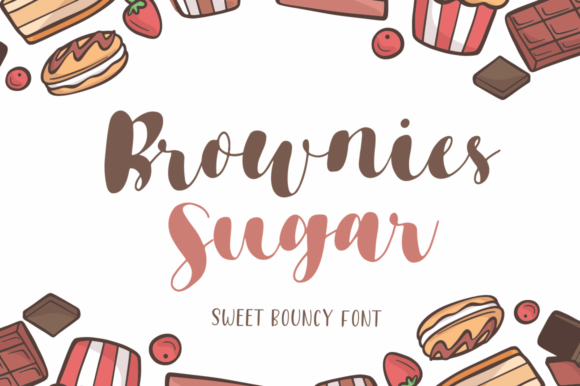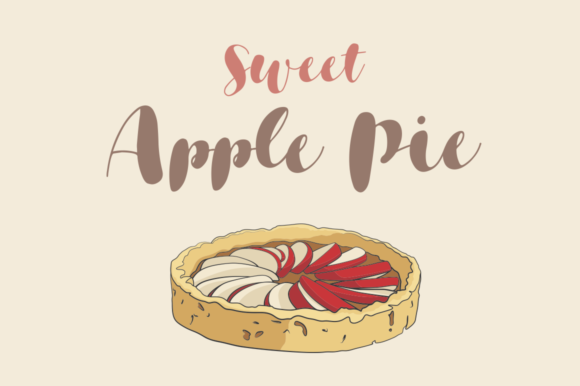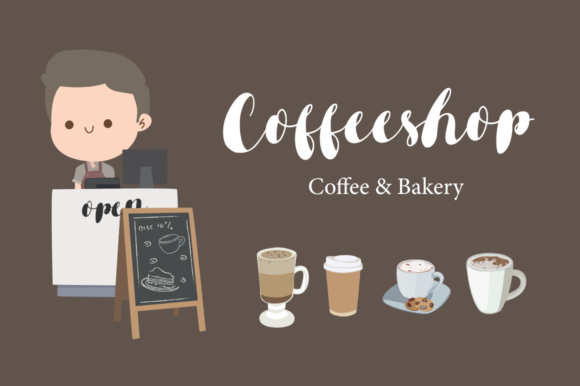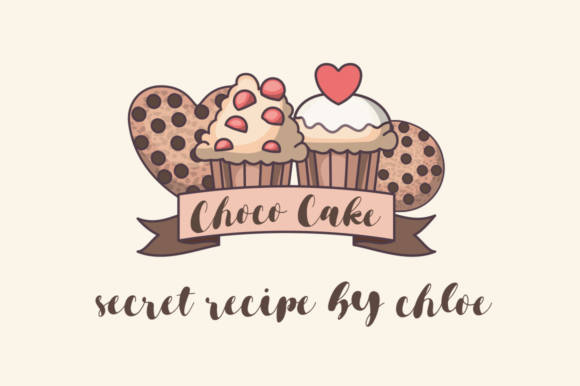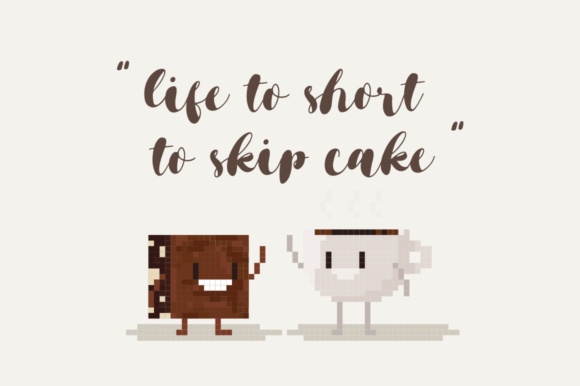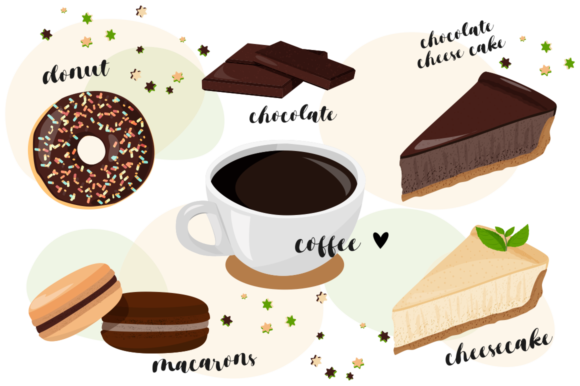
Brownies Sugar Font
About Brownies Sugar Font
Brownies Sugar simplifies elegance into one truly outstanding handwritten font.
Fall in love with its authentic feel and use it to create gorgeous wedding invitations, beautiful stationary art, eye-catching social media posts, and cute greeting cards.